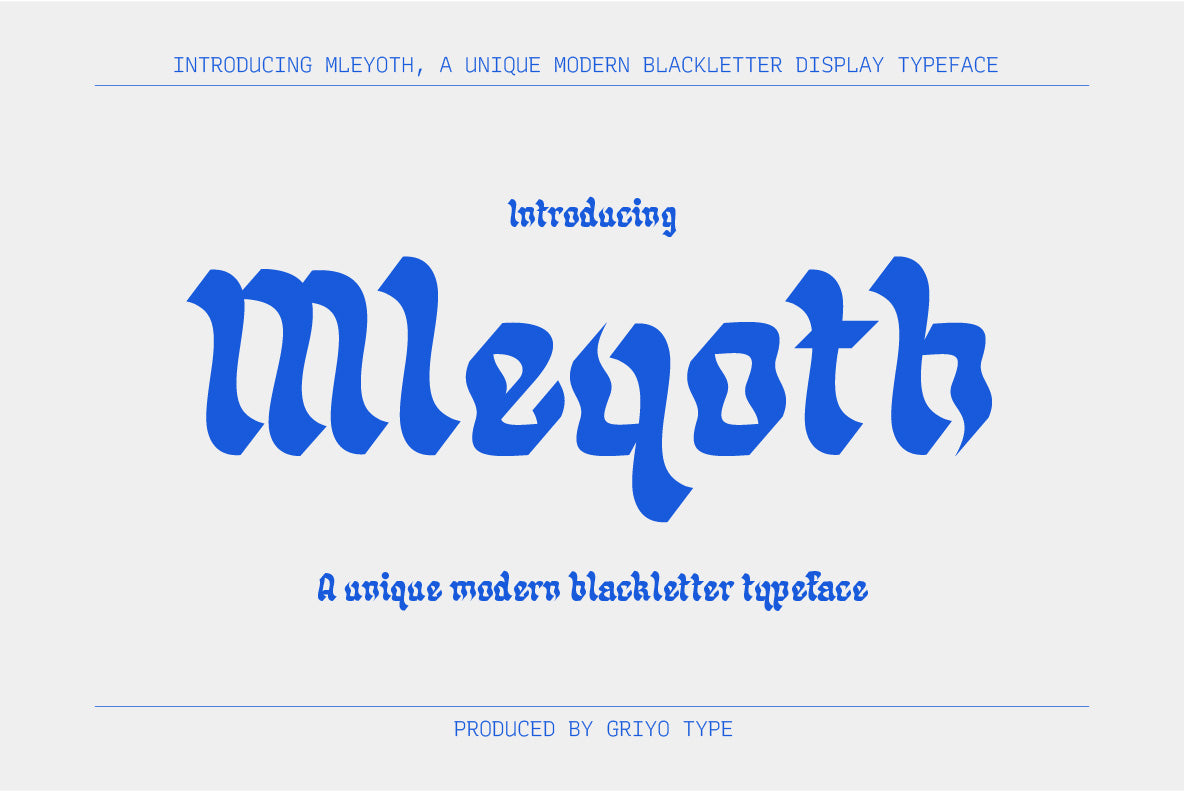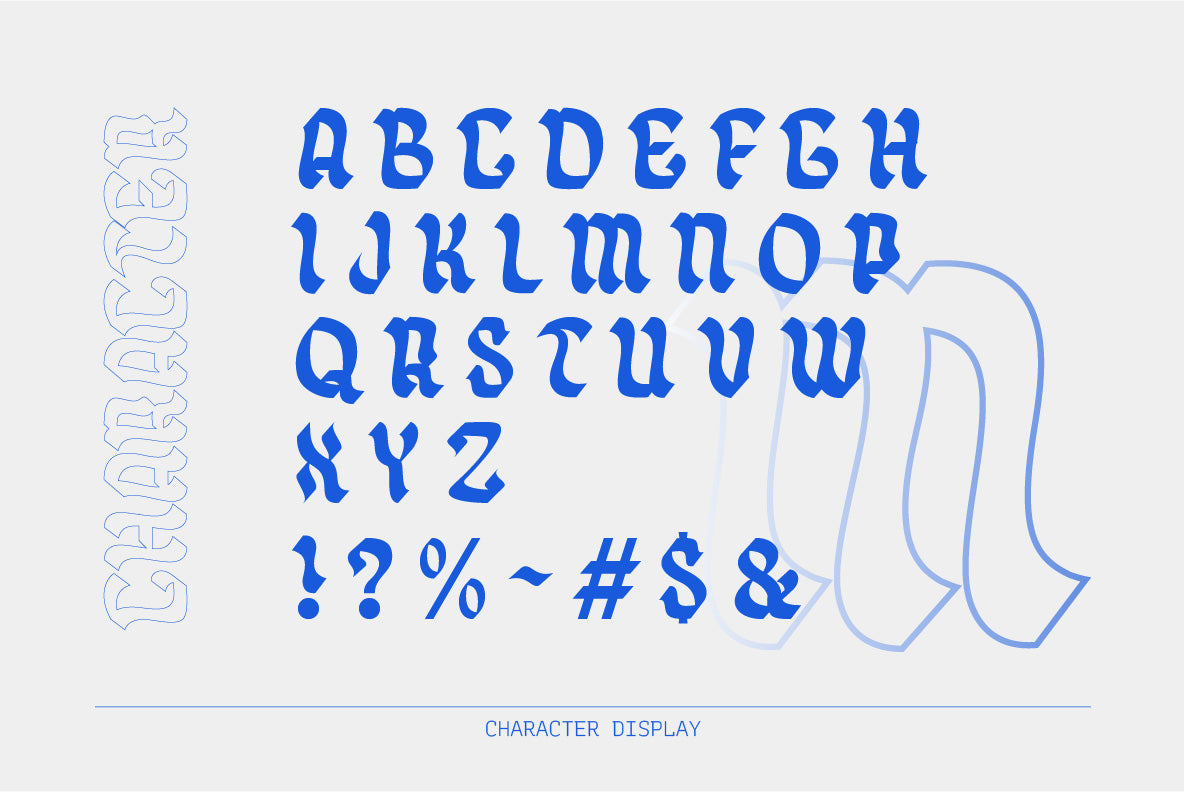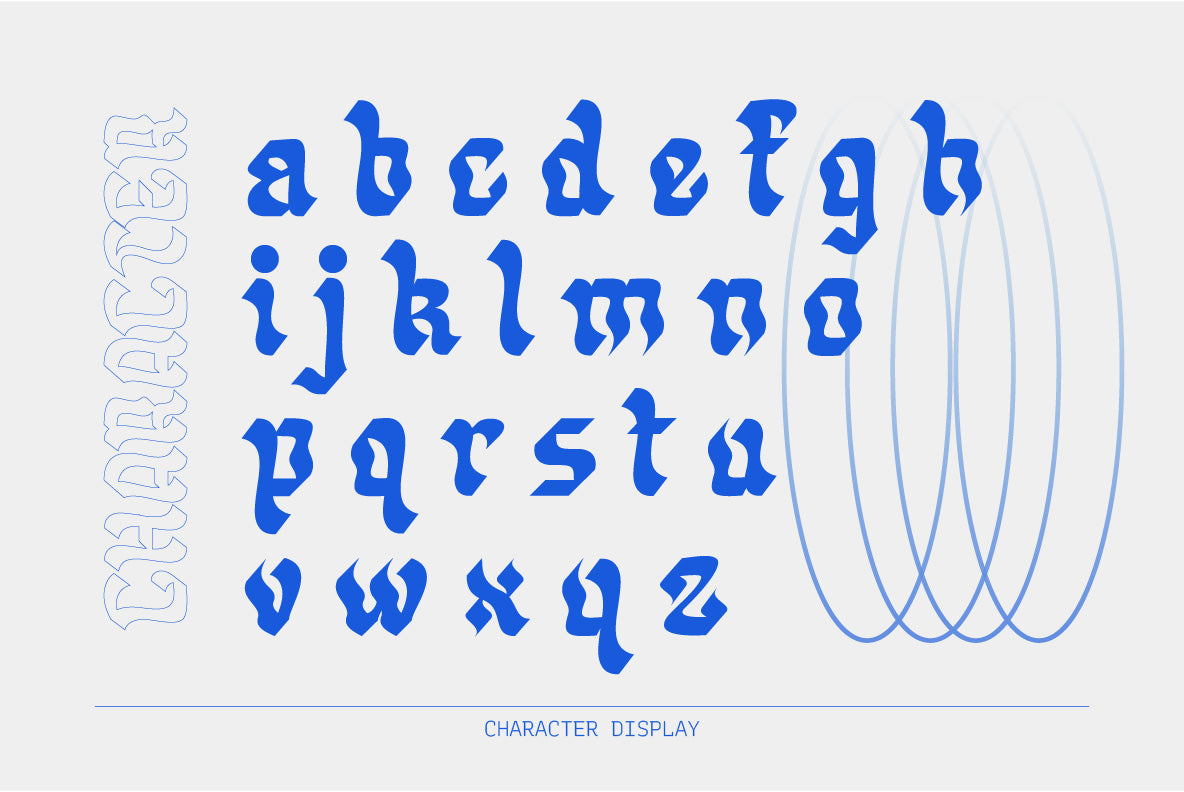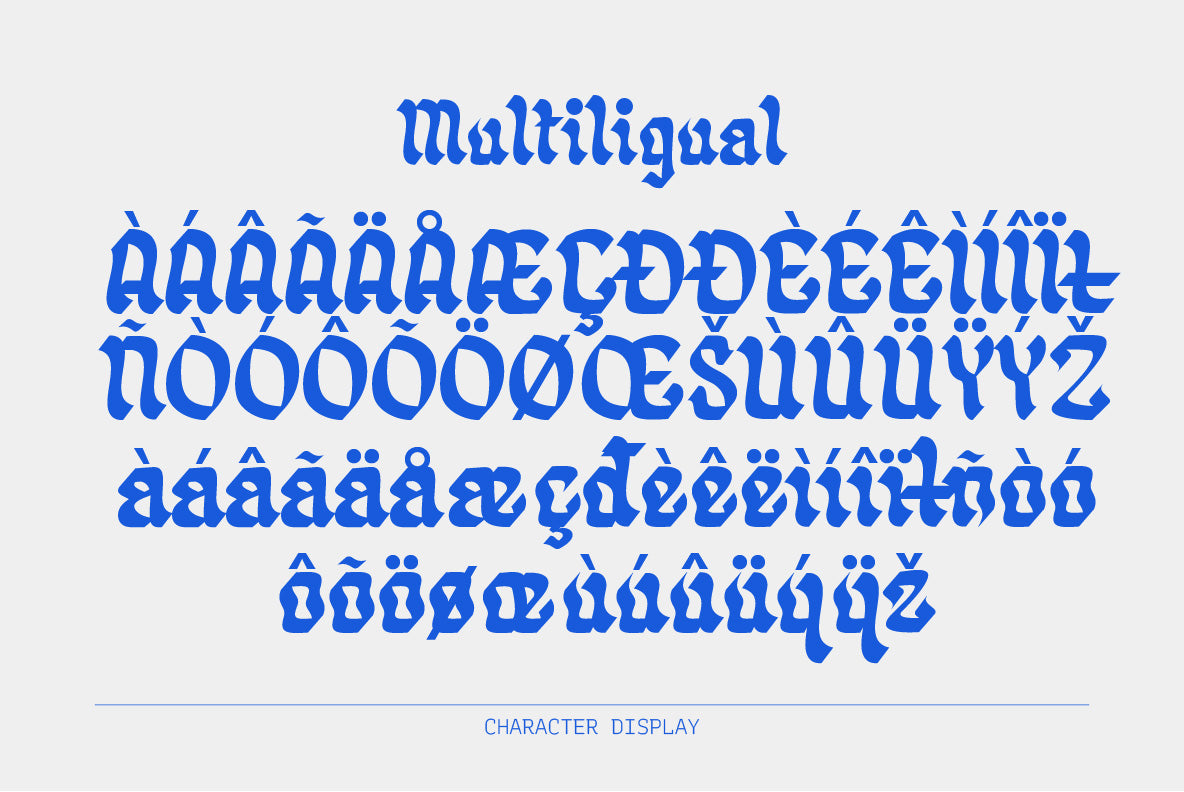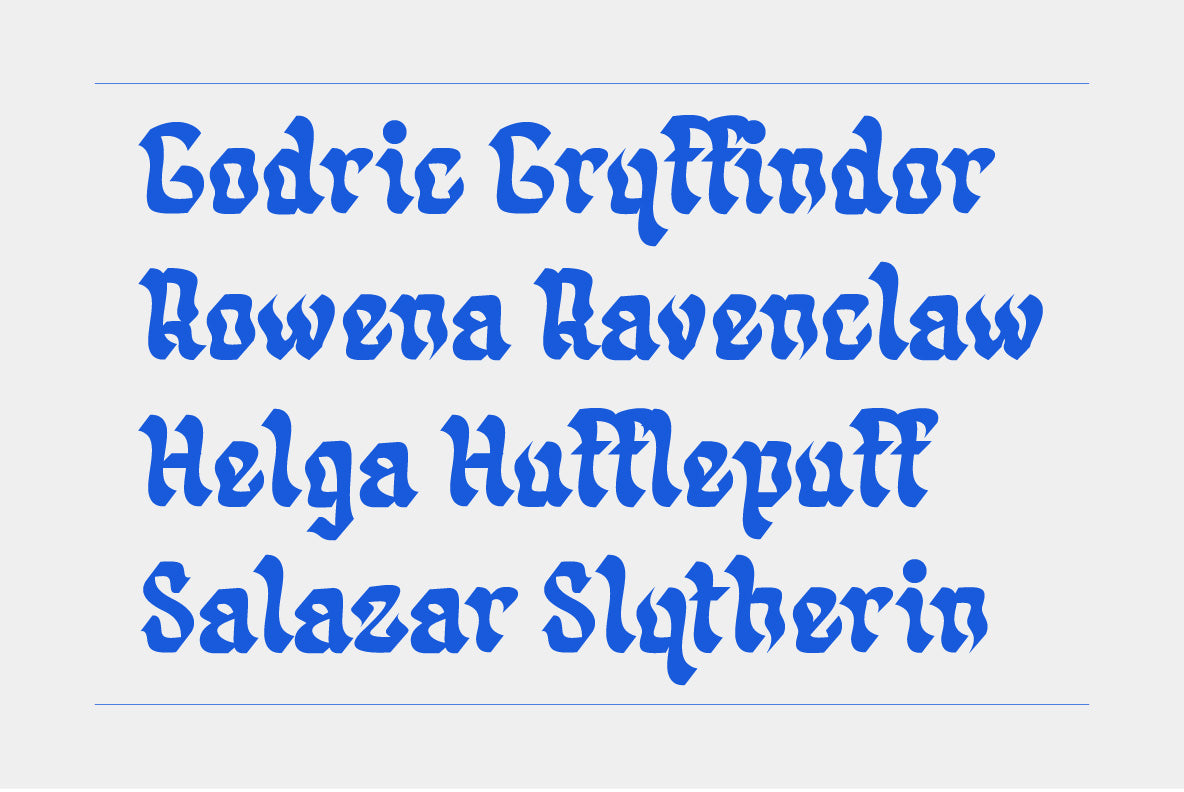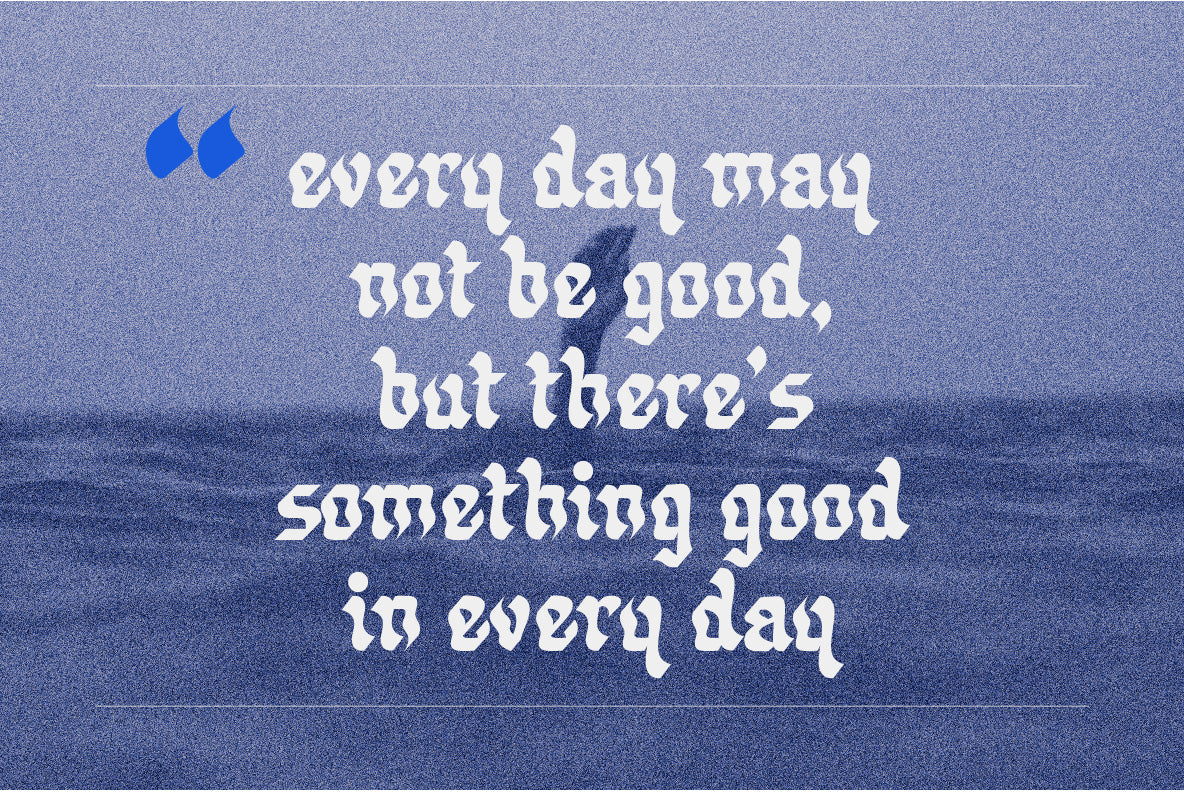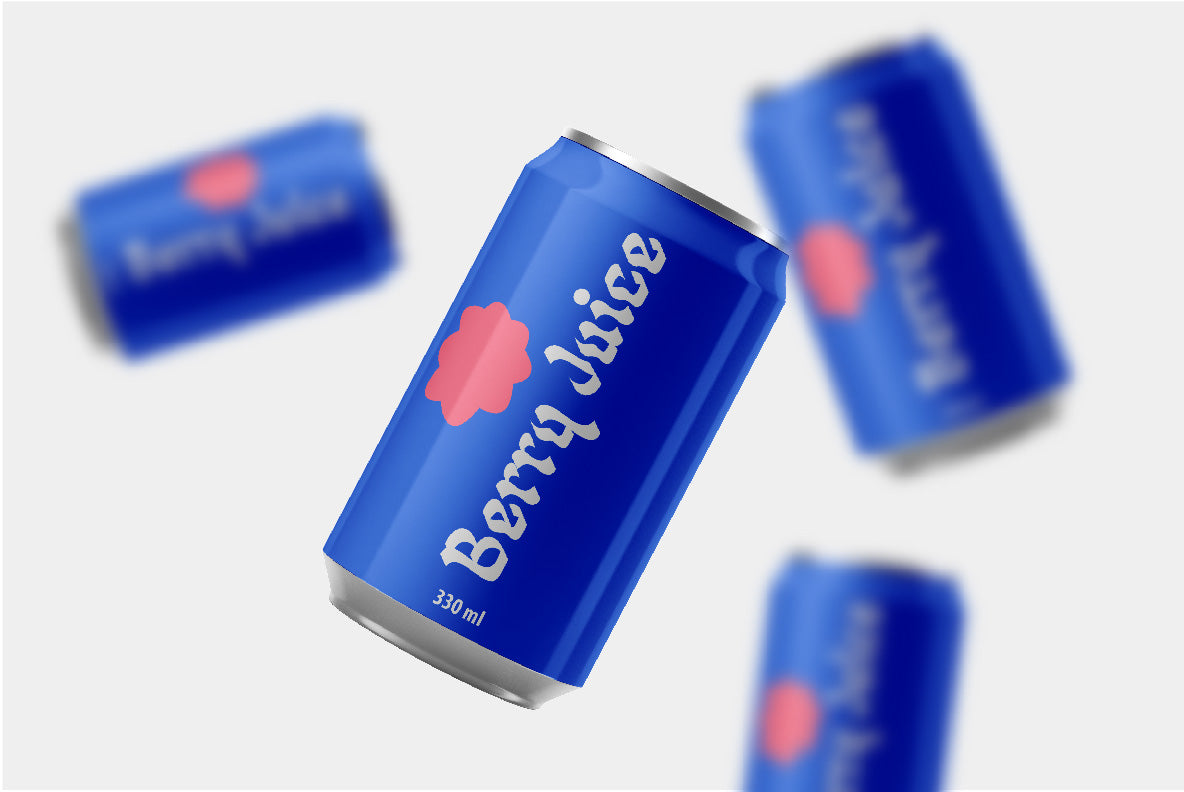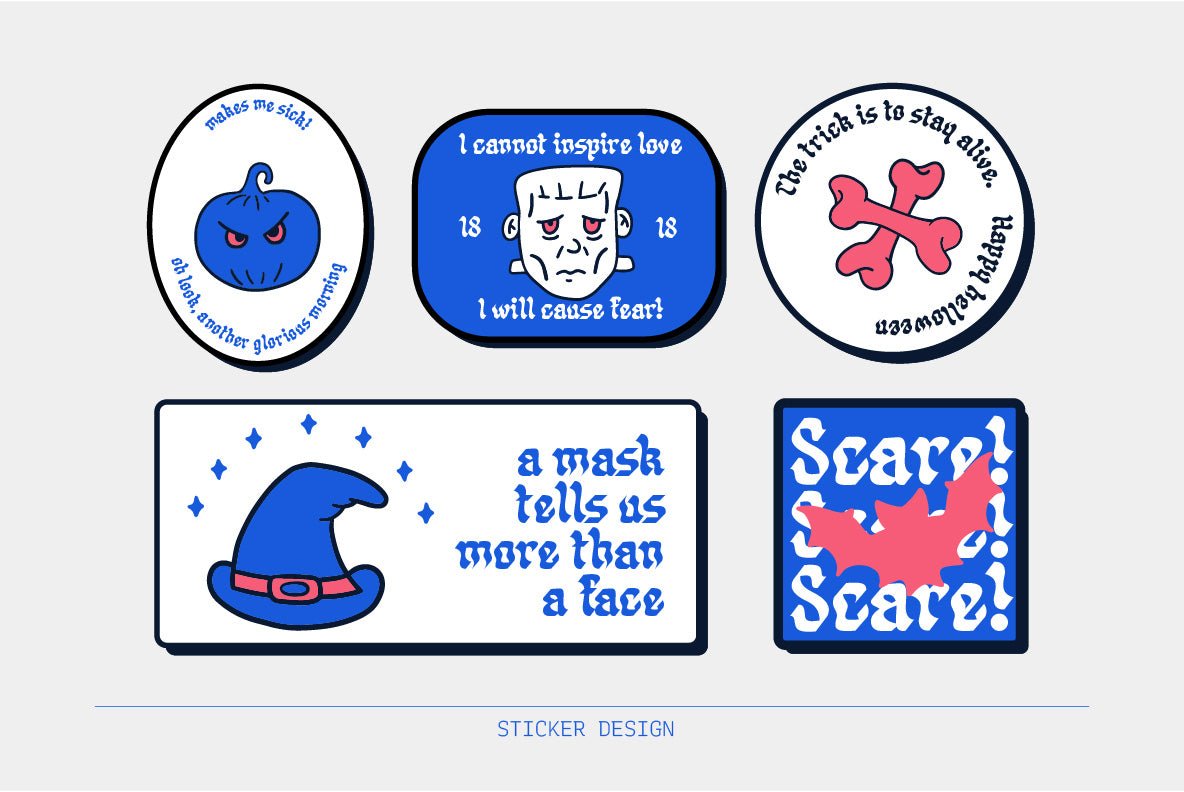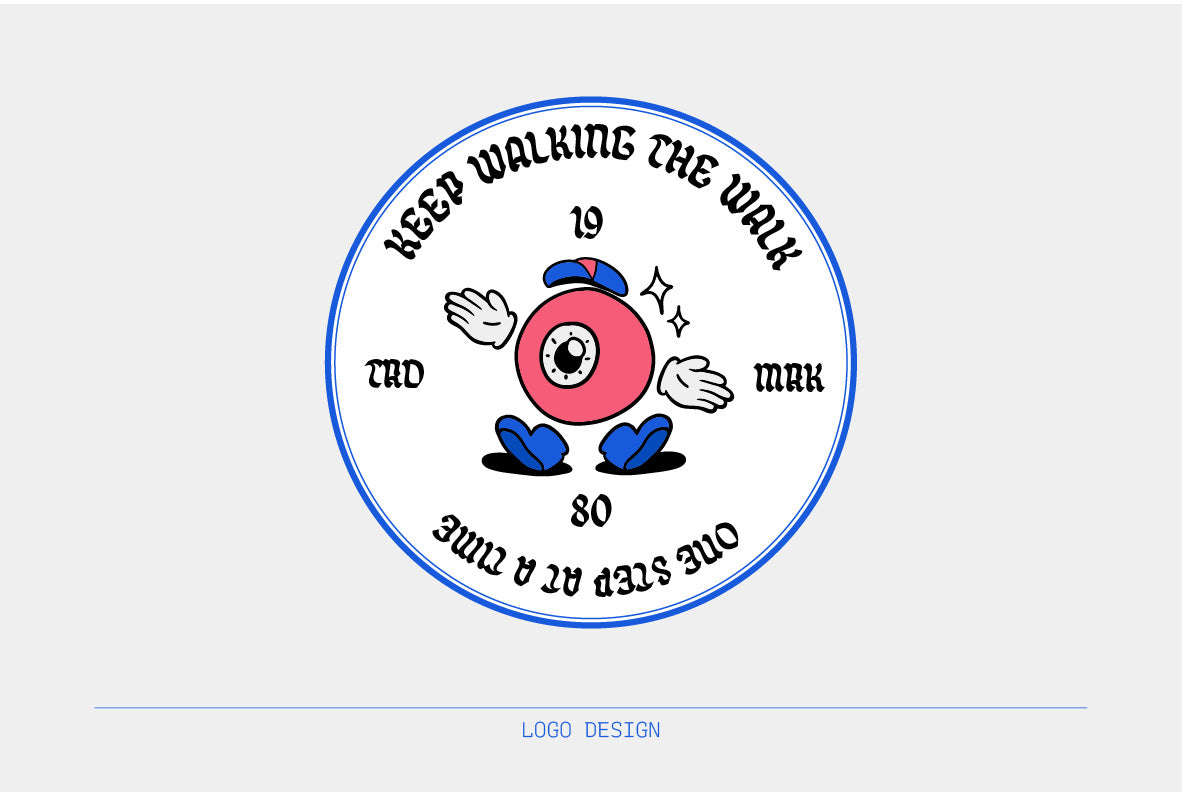
Mleyoth – Modern Blackletter Display Font
Mleyoth is a bold and distinctive modern blackletter display typeface that combines traditional gothic influence with an experimental contemporary approach.
Featuring sharp details, dramatic shapes, and unconventional letterforms, Mleyoth brings a strong visual personality while maintaining the iconic character of blackletter typography.
Its expressive appearance makes it ideal for designs that need a powerful, edgy, and memorable typographic presence.
Perfect for:
Branding and logo design
Posters and editorial artwork
Music and album artwork
Streetwear and fashion branding
T-shirt and merchandise design
Packaging and labels
Tattoo-inspired graphics
Gothic and alternative designs
Event posters
Social media graphics
Headlines and display typography
Mleyoth works especially well when used at large sizes, allowing its distinctive letterforms and dramatic details to become the main visual element of the design.
Mleyoth is a modern blackletter display typeface featuring sharp details, dramatic shapes, and unconventional letterforms that combine traditional gothic influence with a contemporary design approach.